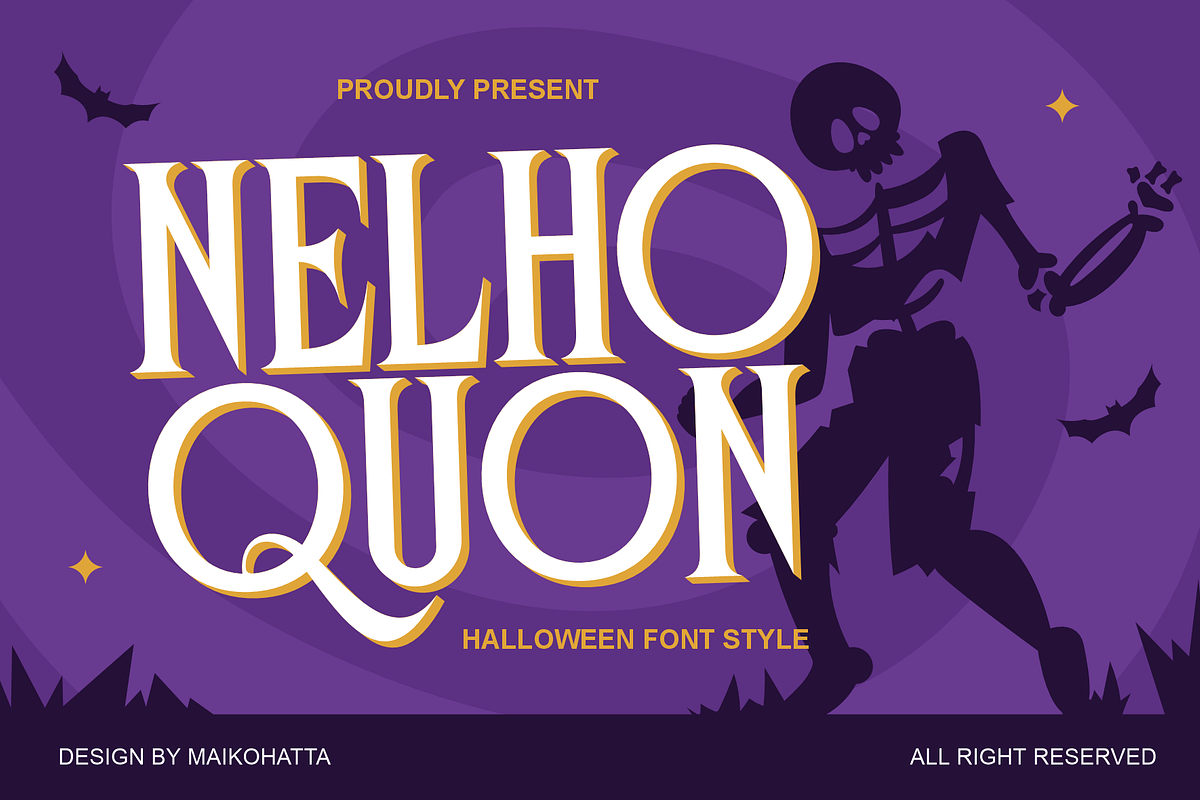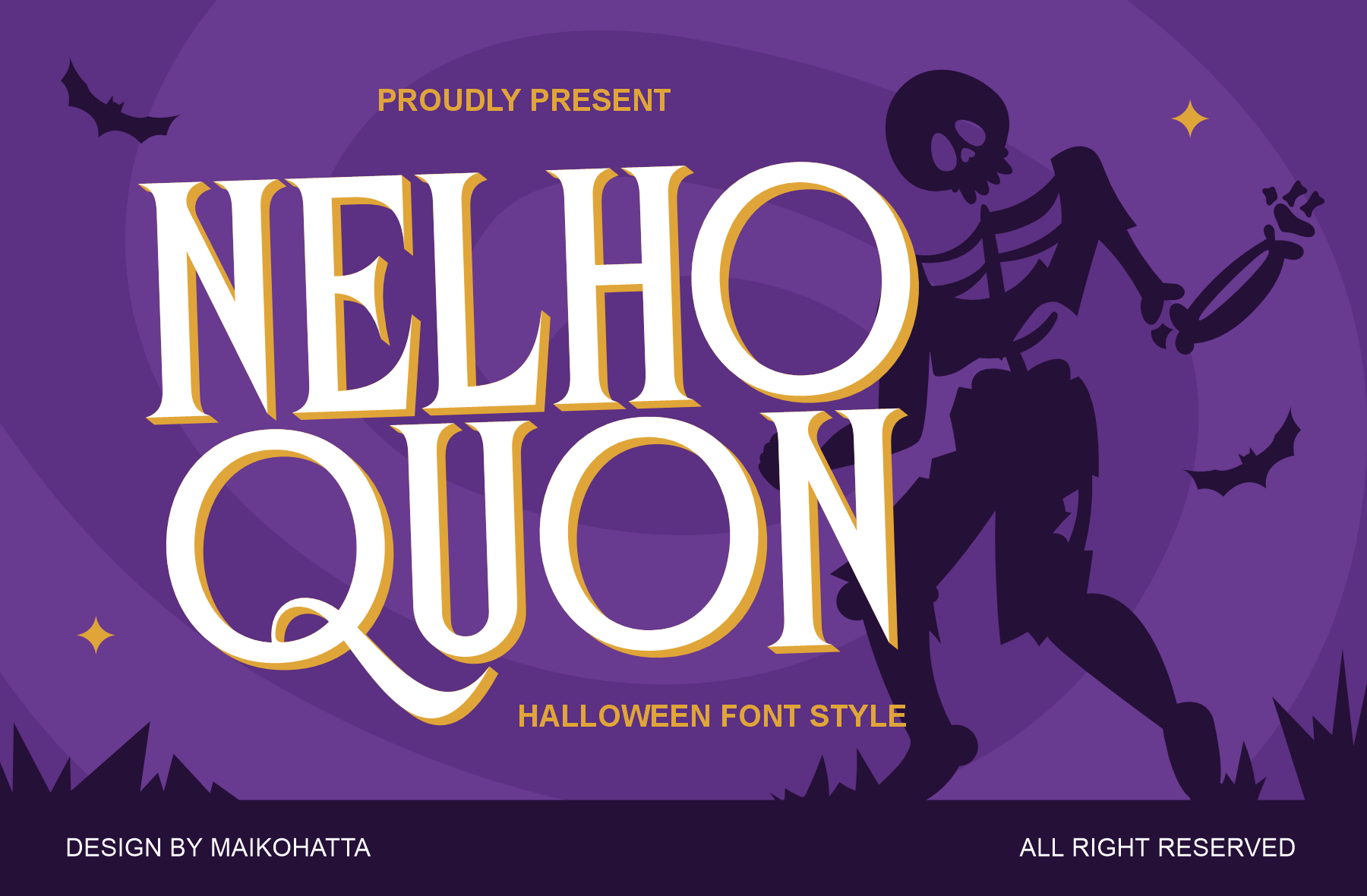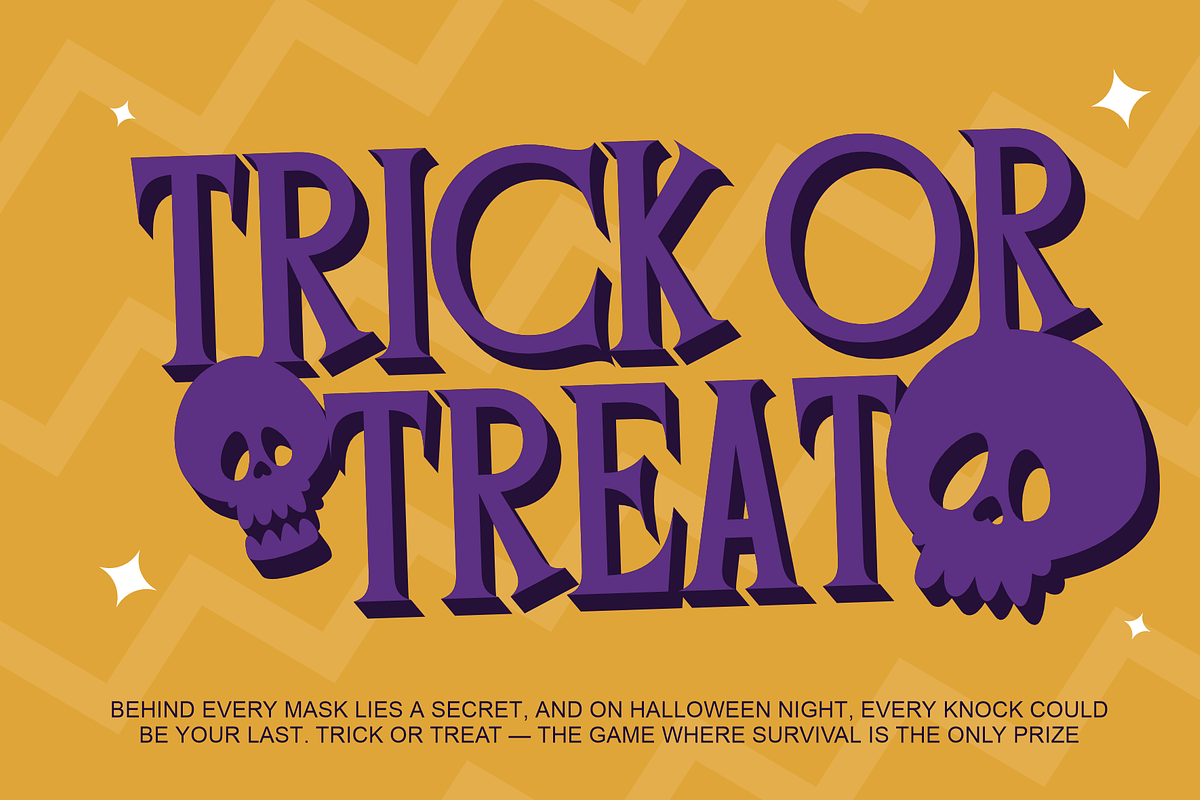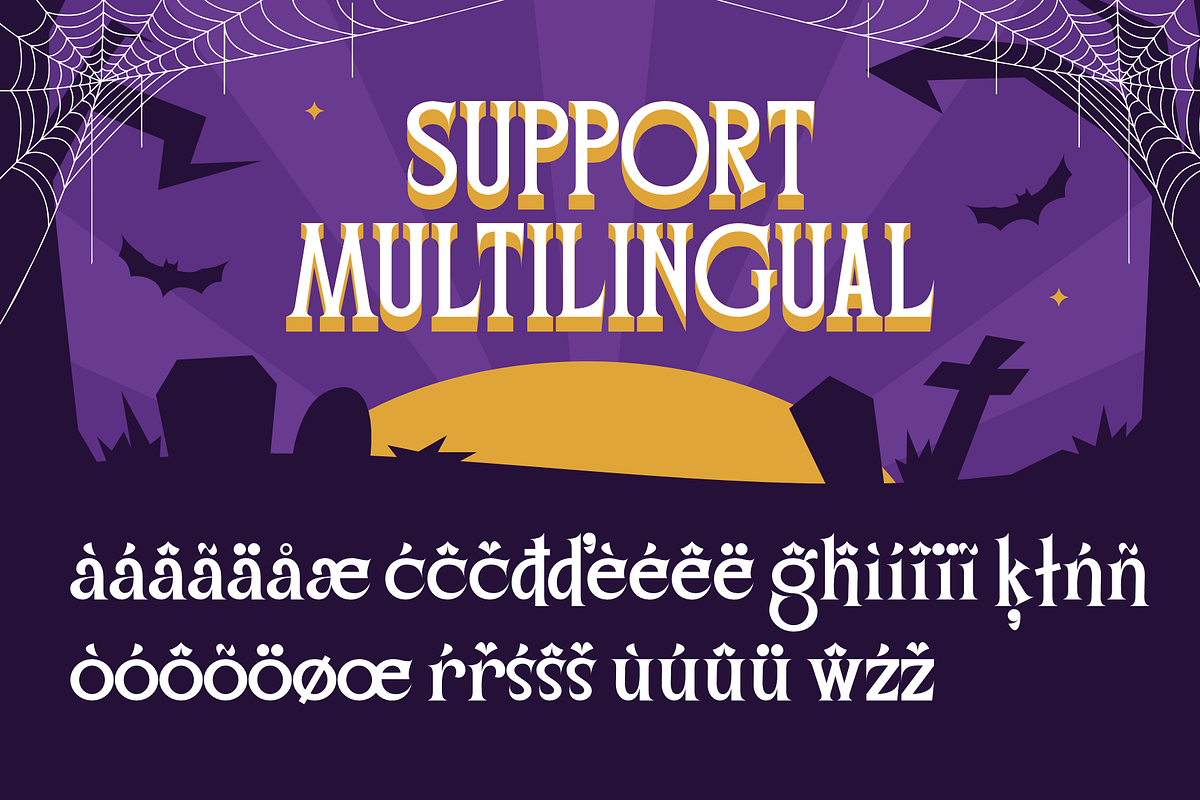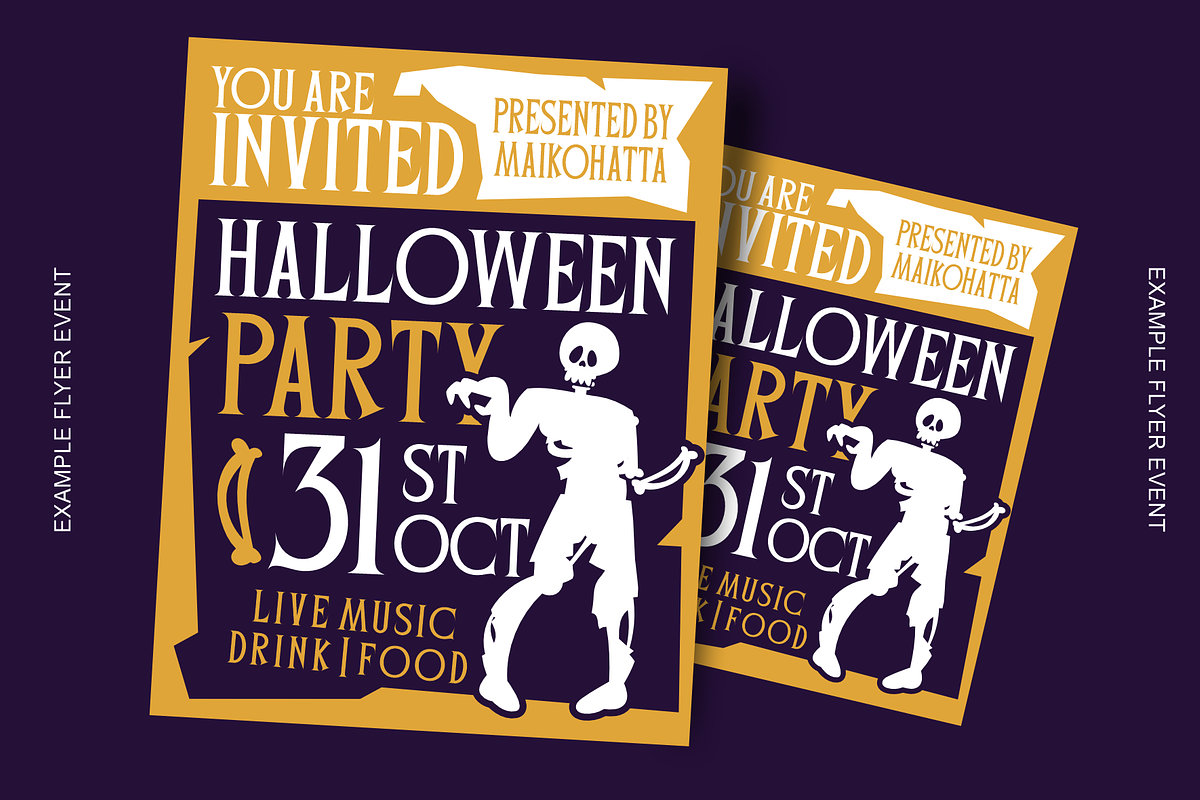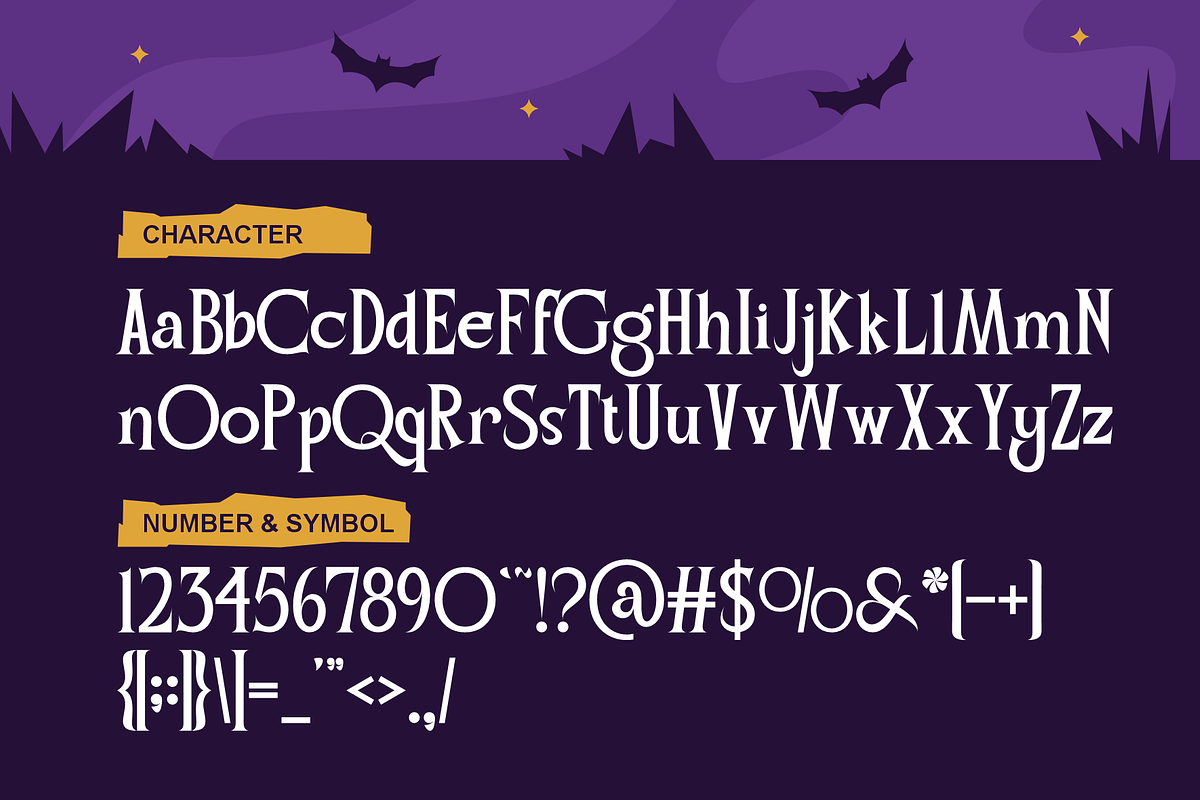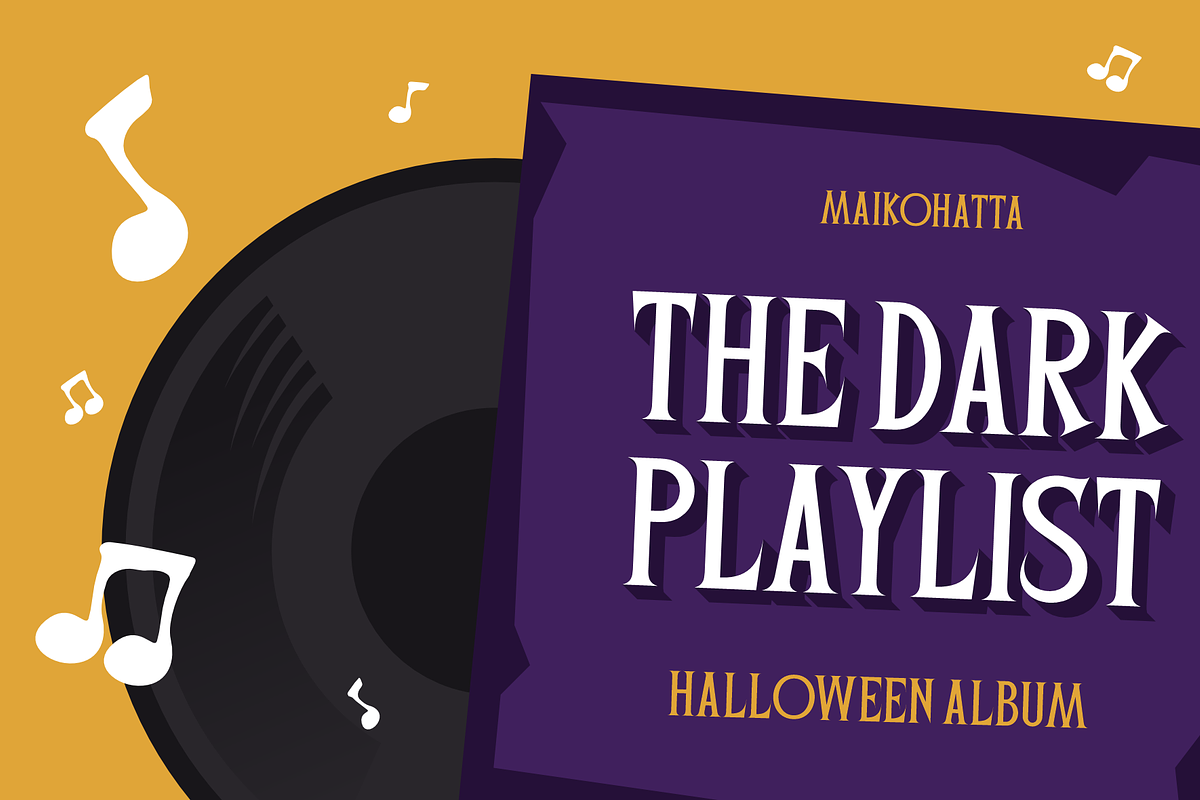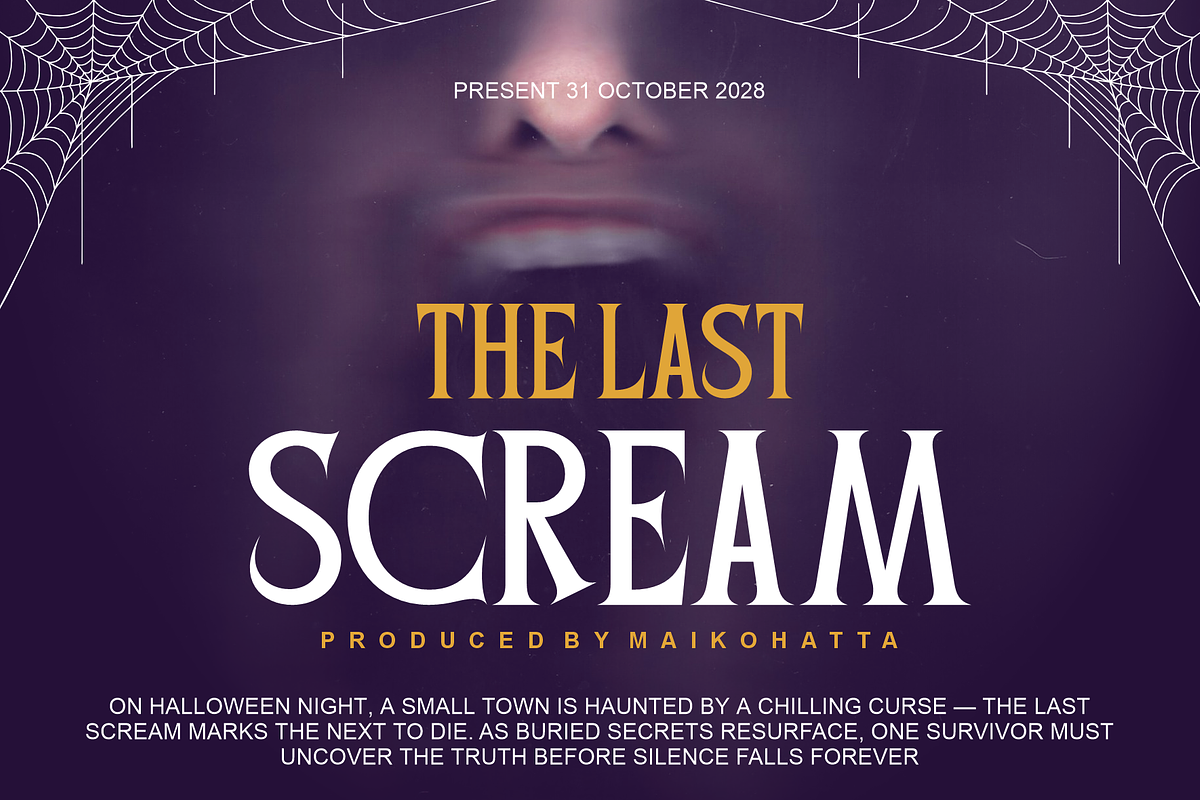
Nelho Quon - Halloween Serif Font
Nelho Quon is a bold and stylish serif font with a spooky twist, specially crafted for Halloween-themed designs. Featuring sharp edges, elegant curves, and playful details, this font perfectly blends classic serif sophistication with eerie seasonal vibes. Its tall, dramatic letterforms with subtle gothic influences make it an excellent choice for posters, invitations, party flyers, movie titles, or any project that needs a haunting yet classy touch.
Bring your Halloween designs to life with Nelho Quon—a font that’s both creepy and captivating